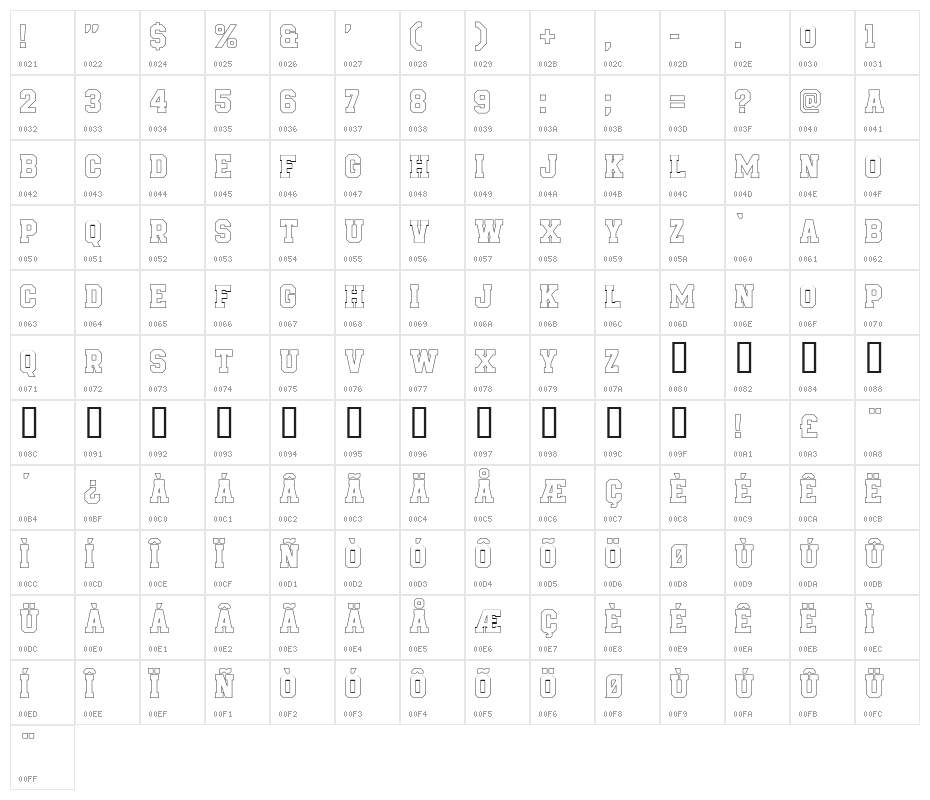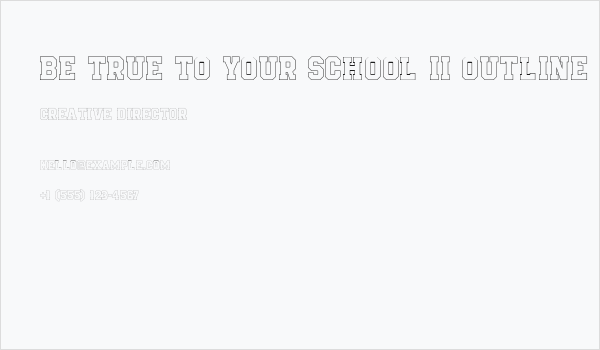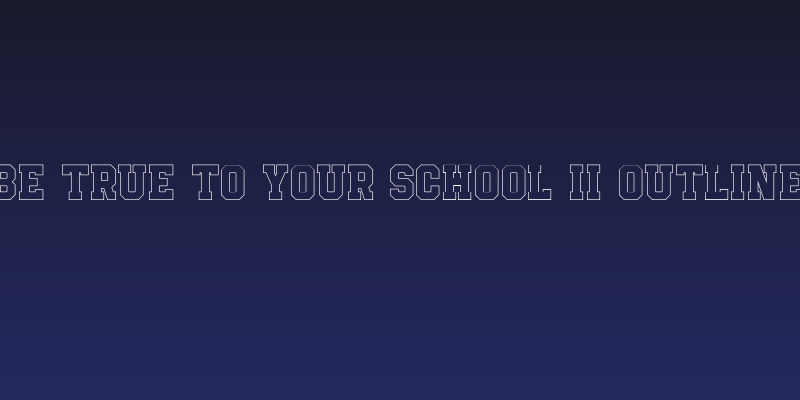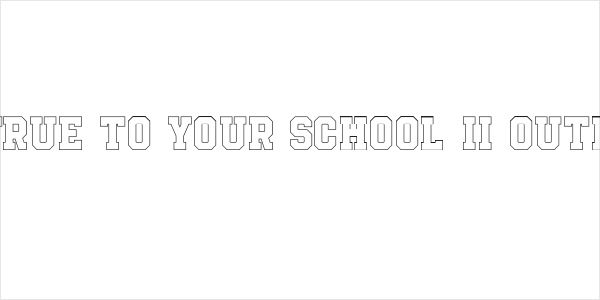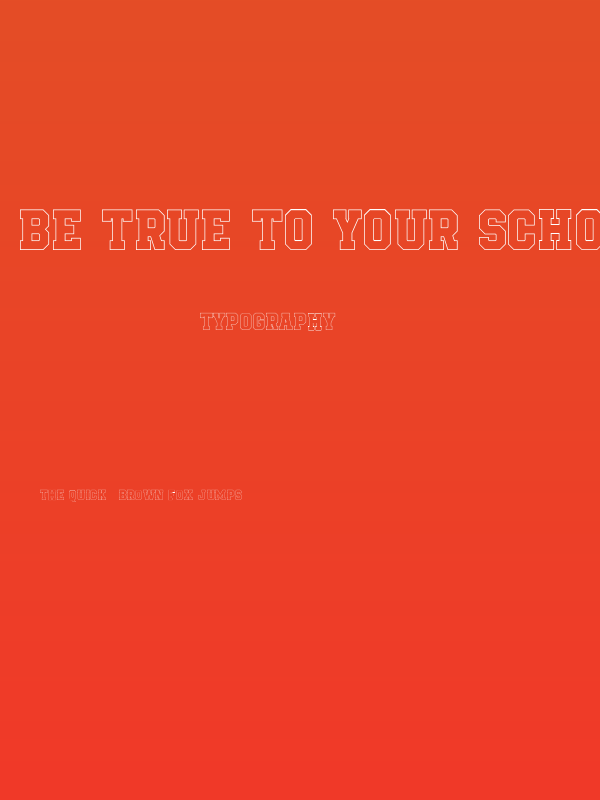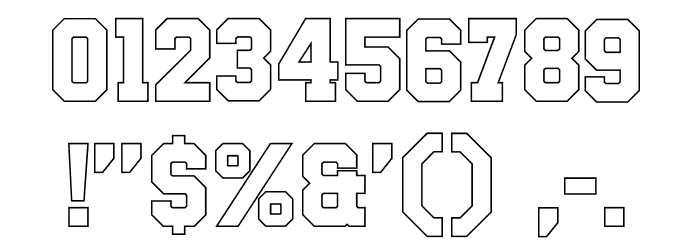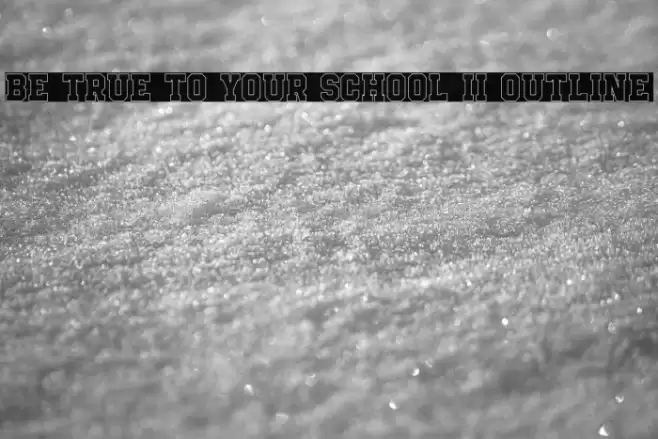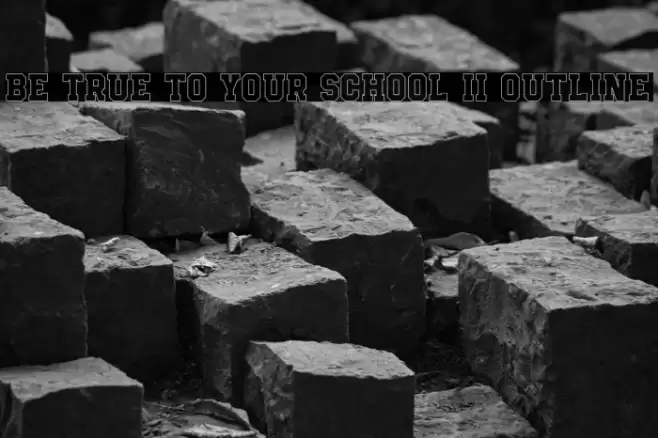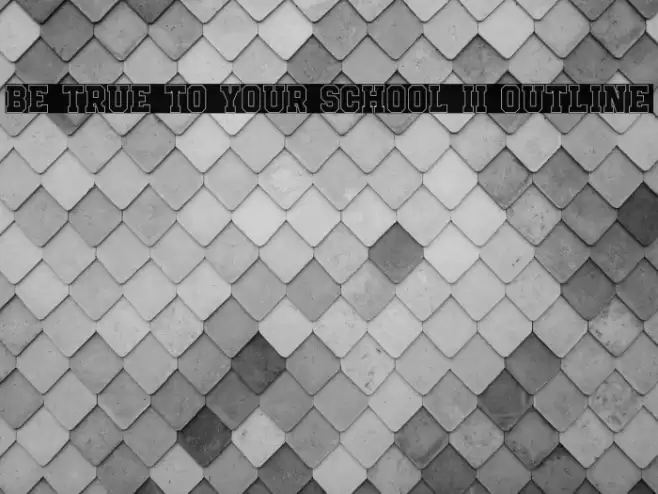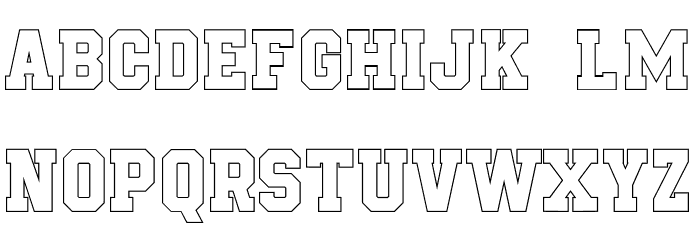
Be True To Your School II Outline Font
Be True To Your School II Outline Description
This font features a bold, outlined style with a strong, collegiate aesthetic. The characters are uppercase and have a geometric, blocky appearance, reminiscent of traditional varsity lettering. The outlines are consistent in thickness, providing a uniform look across all characters. The font is highly legible and commands attention, making it ideal for use in designs that require a bold statement. The numbers and special characters maintain the same outlined style, ensuring a cohesive look throughout any text. This font is perfect for projects that aim to evoke a sense of tradition, strength, and team spirit.
| Overall Style | Classic |
| Proposed Projects | Ideal for school branding, sports team logos, event posters, and merchandise designs. |